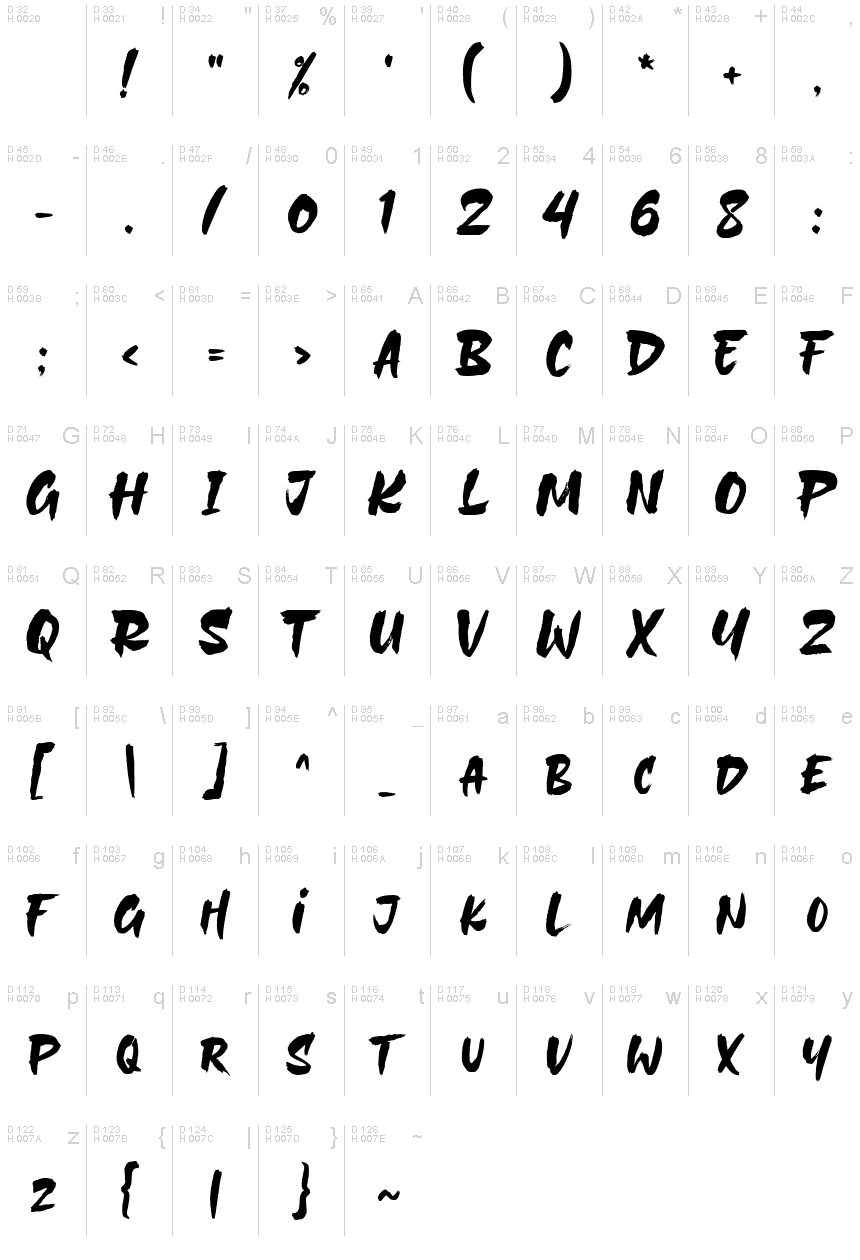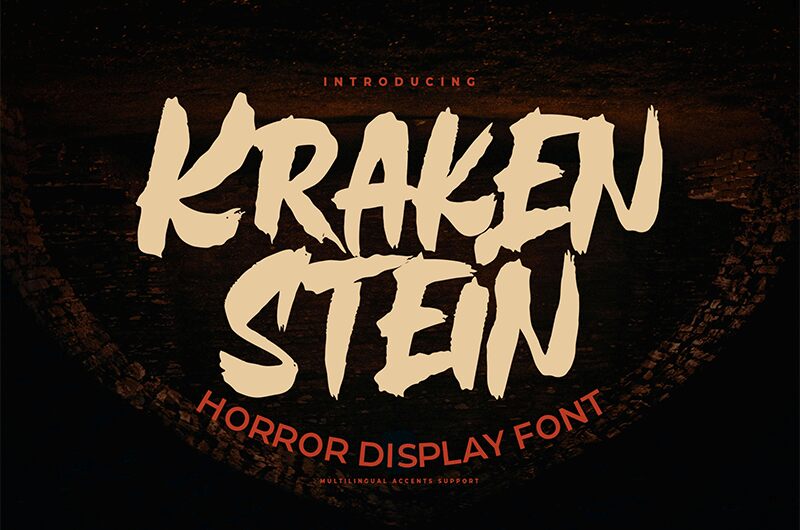
Krakenstein
Unleash the monstrous charm of Krakenstein, a horror display font that embodies a fusion of wild brush strokes and modern flair. Crafted by the imaginative Gassstype, this bold brush font boasts an aesthetic that's perfectly tailored for projects demanding a touch of the extraordinary. With its dramatic movement and casual quickness, Krakenstein breathes life into your designs.
Designed to capture attention, Krakenstein is a go-to choice for creatives seeking to inject authenticity and fun into their work. Whether it's enhancing modern labels or adding character to posters, this font's textured appearance offers a natural look that stands out. Ideal for branding, packaging, or web design—it excels across various mediums.
Embrace the versatility of Krakenstein for your next project and let its unique characteristics propel your creative vision to new heights!